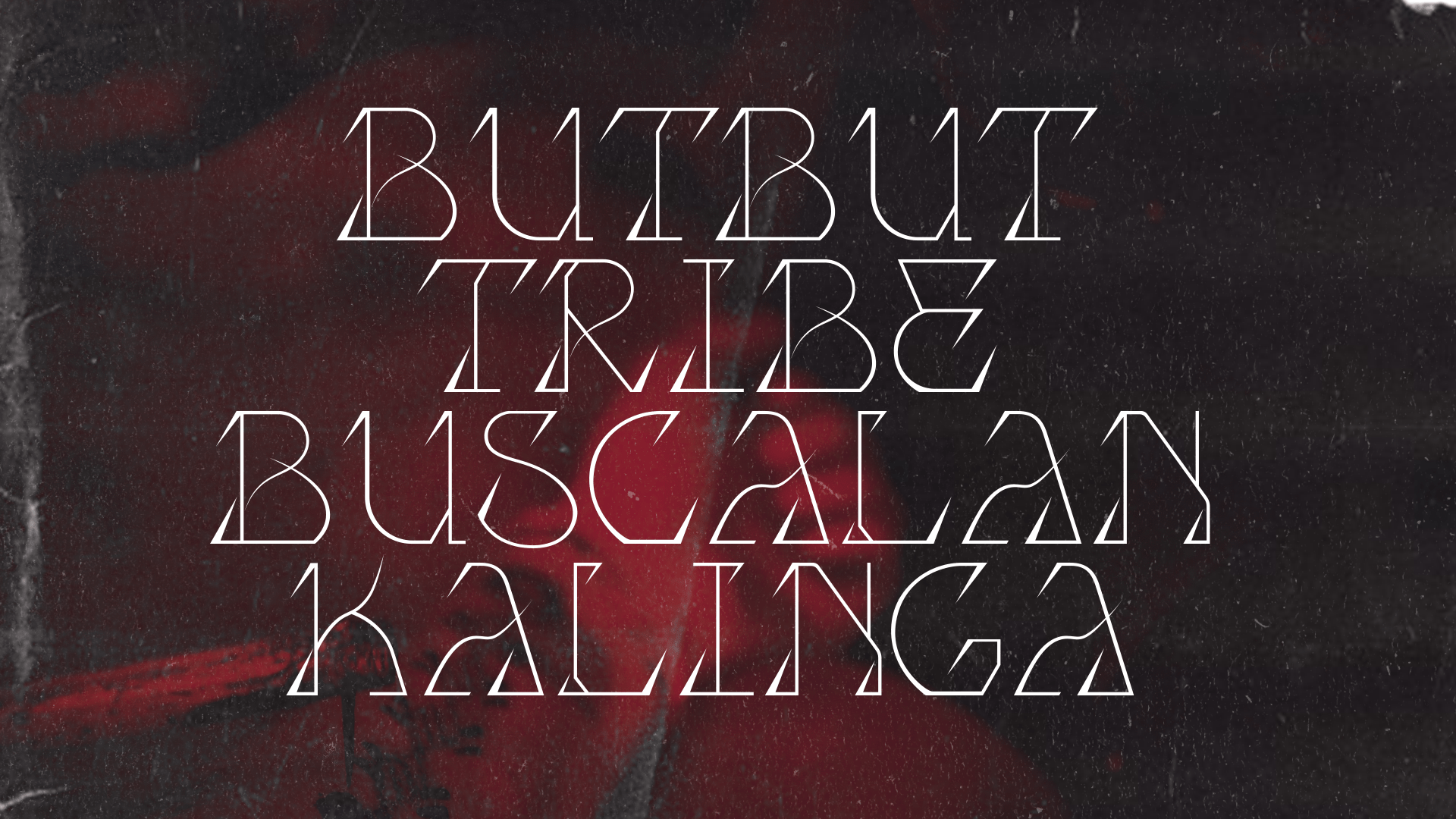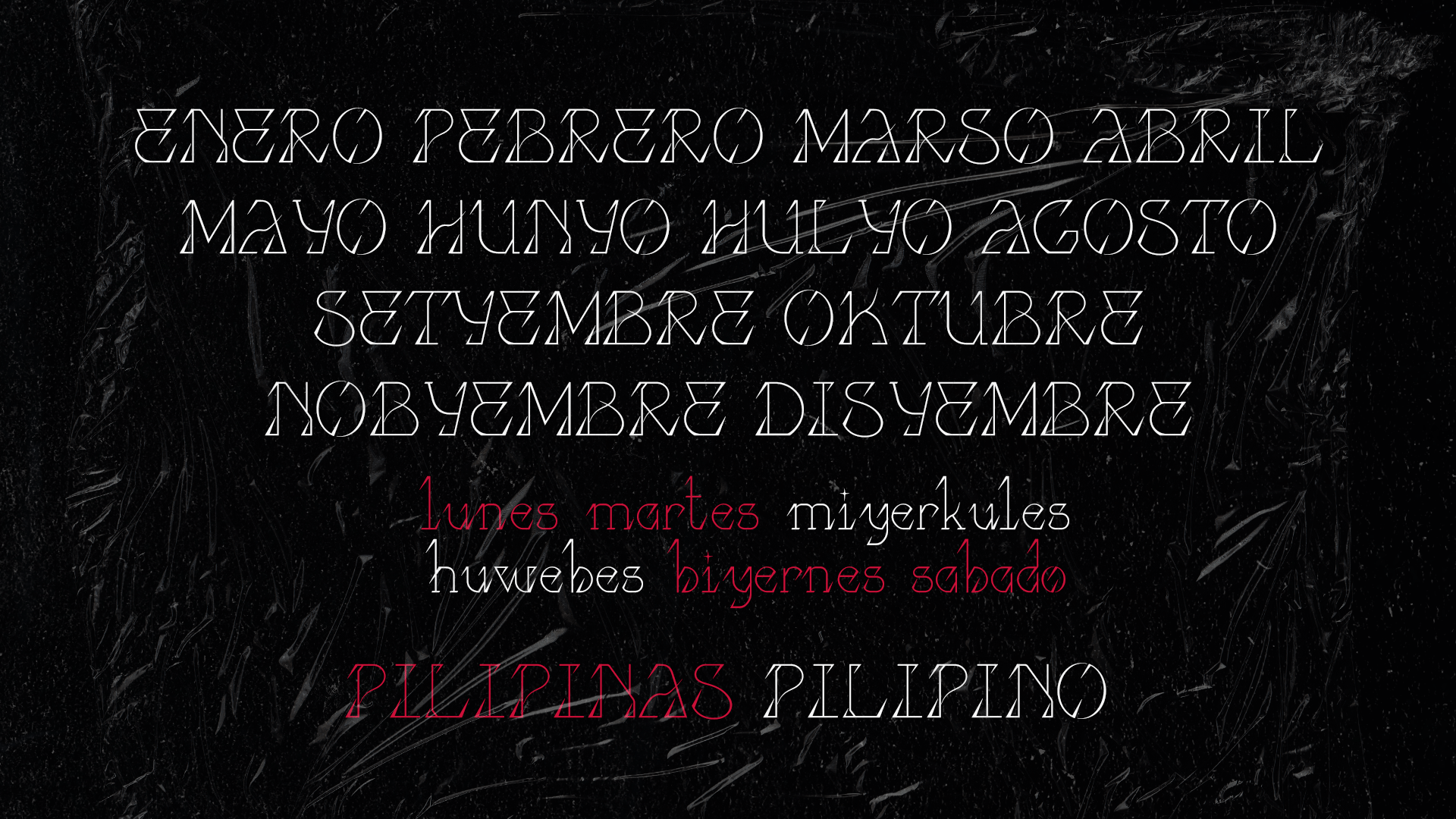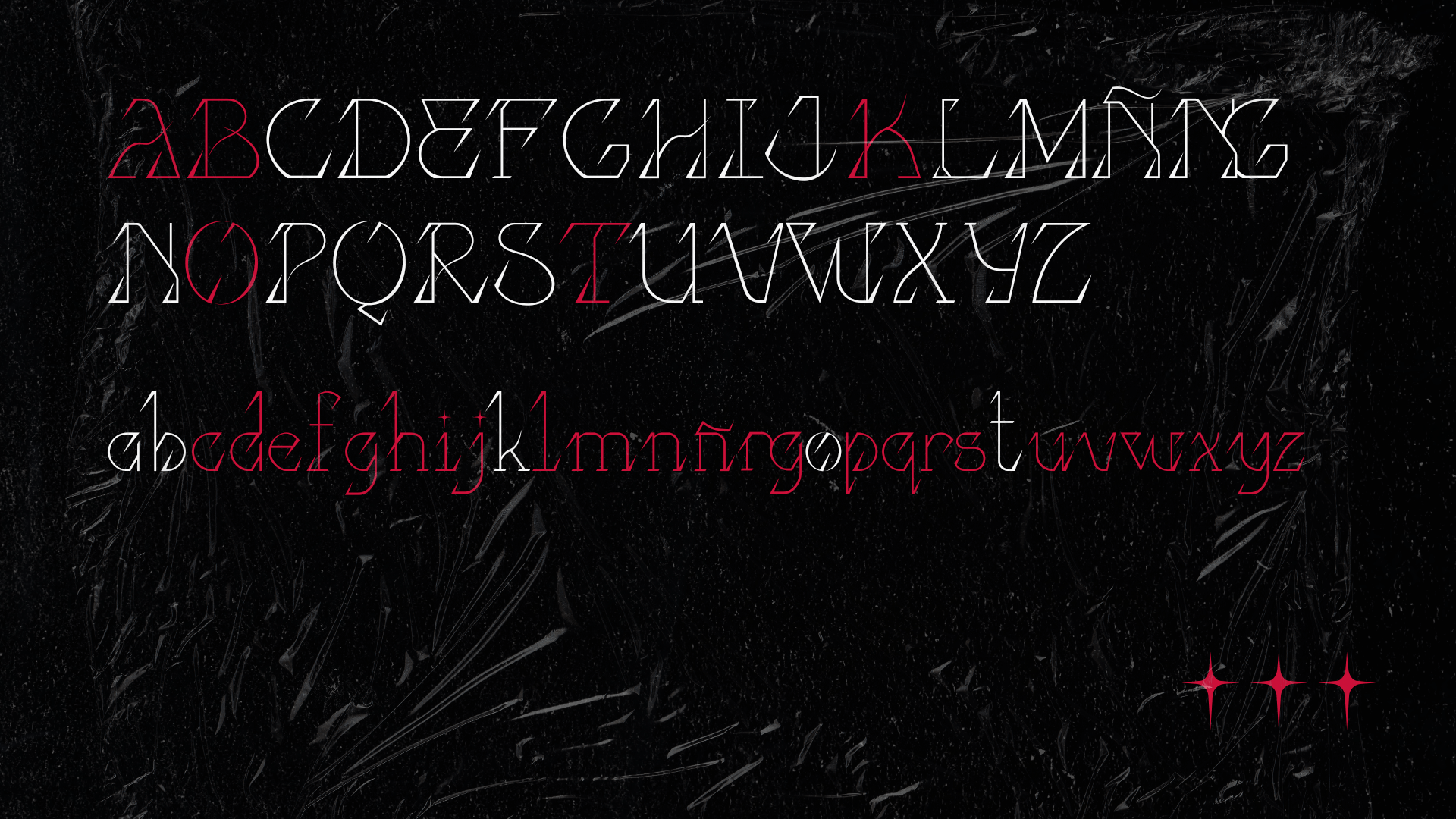
Batok Karayom Font
Batok Karayom Display Font
The word Batok comes from the Kalinga equivalent of the word tattoo. Pambabatok is a highly respected art form that is engraved in the Filipino culture. It used to be for tribes’ headhunters and women going through rites of passage, but nowadays many tourists visit Kalinga to get a tattoo from the oldest and ‘last’ mambabatok, Apo Whang-Od.
Batok is a sharp and expressive typeface inspired by the ancient ethnic Philippine art of hand-tapped tattoos. The spikes reflect the thorns that are used to tattoo the body with.
Batok works great when set large as posters, headings, editorial projects, merchandise design, or simply just as a text overlay to a background image.
Batok Karayom is the thin variant of the upcoming font family Batok. Karayom translates to “needle” in Tagalog.